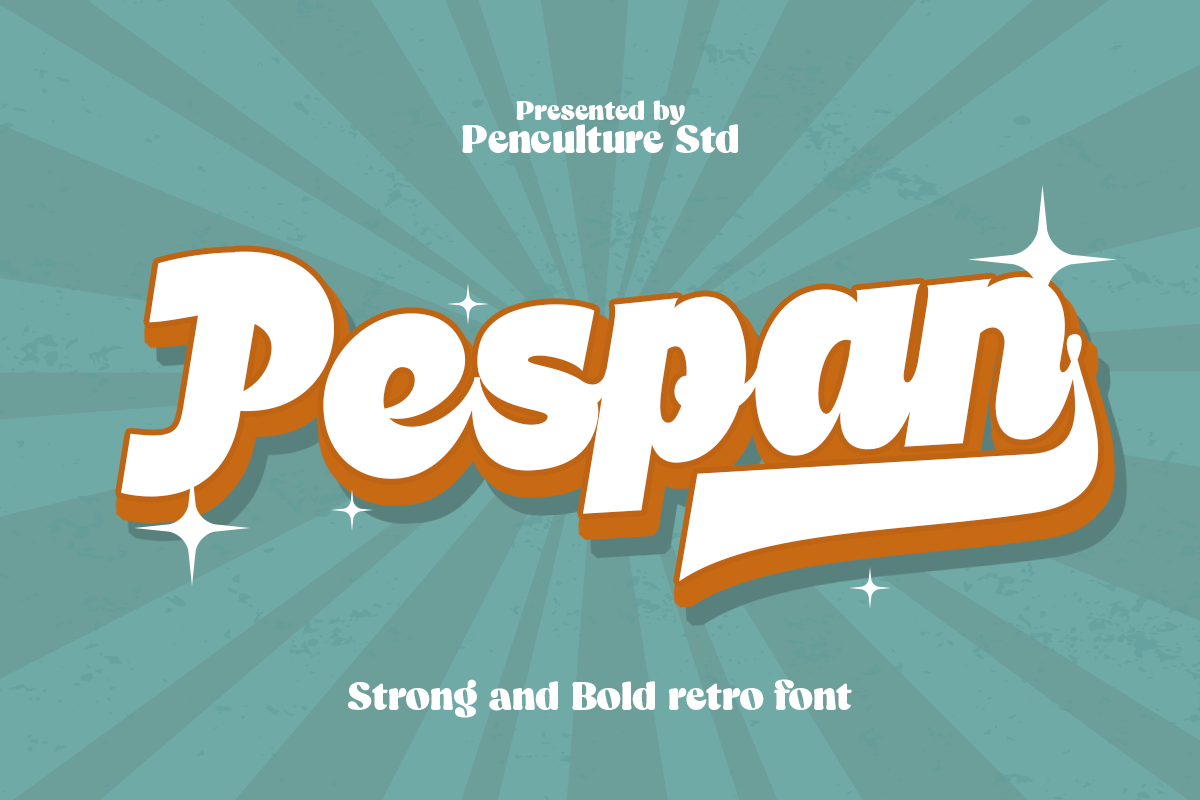
Pespan Retro Font
Pespan is a bold script font that exudes energy and style. Featuring striking ligatures and exceptional stylistic alternates, Pespan gives you the flexibility to create unique, customized designs with ease.
Perfect for logos, branding, packaging, posters, and more, this font blends boldness with elegance, making it ideal for projects that demand attention and character. No matter the design aesthetic, Pespan adds a creative touch to every project.